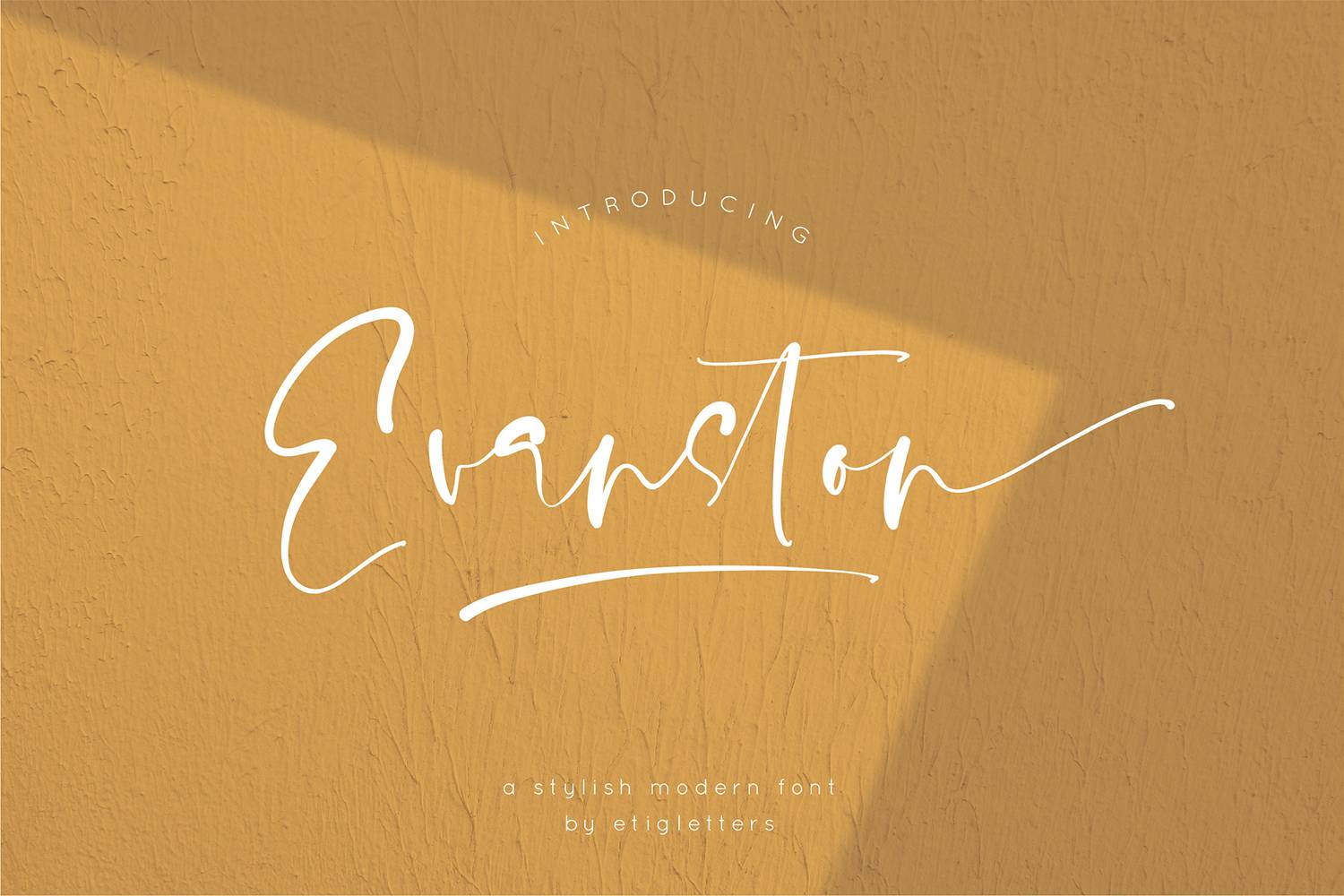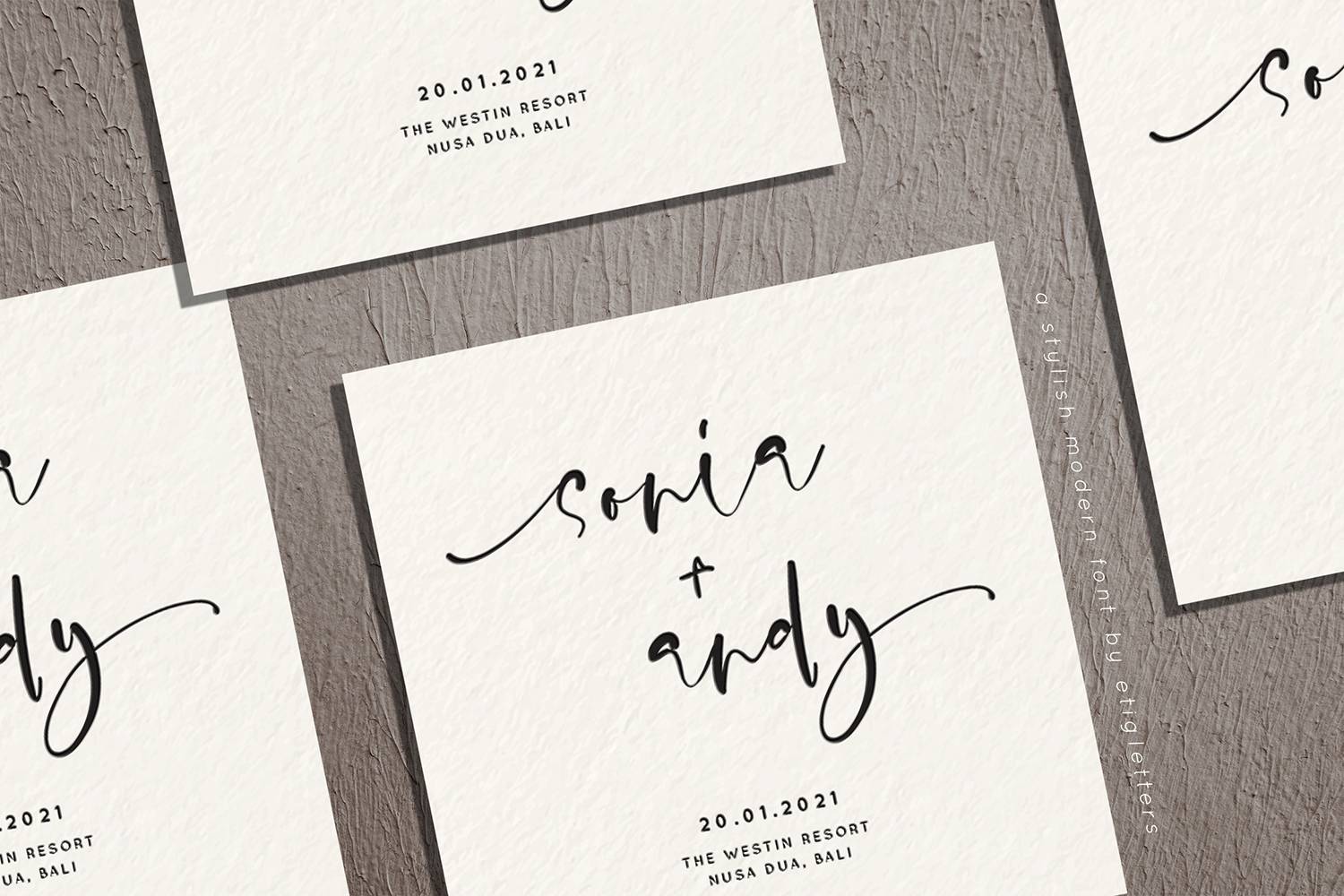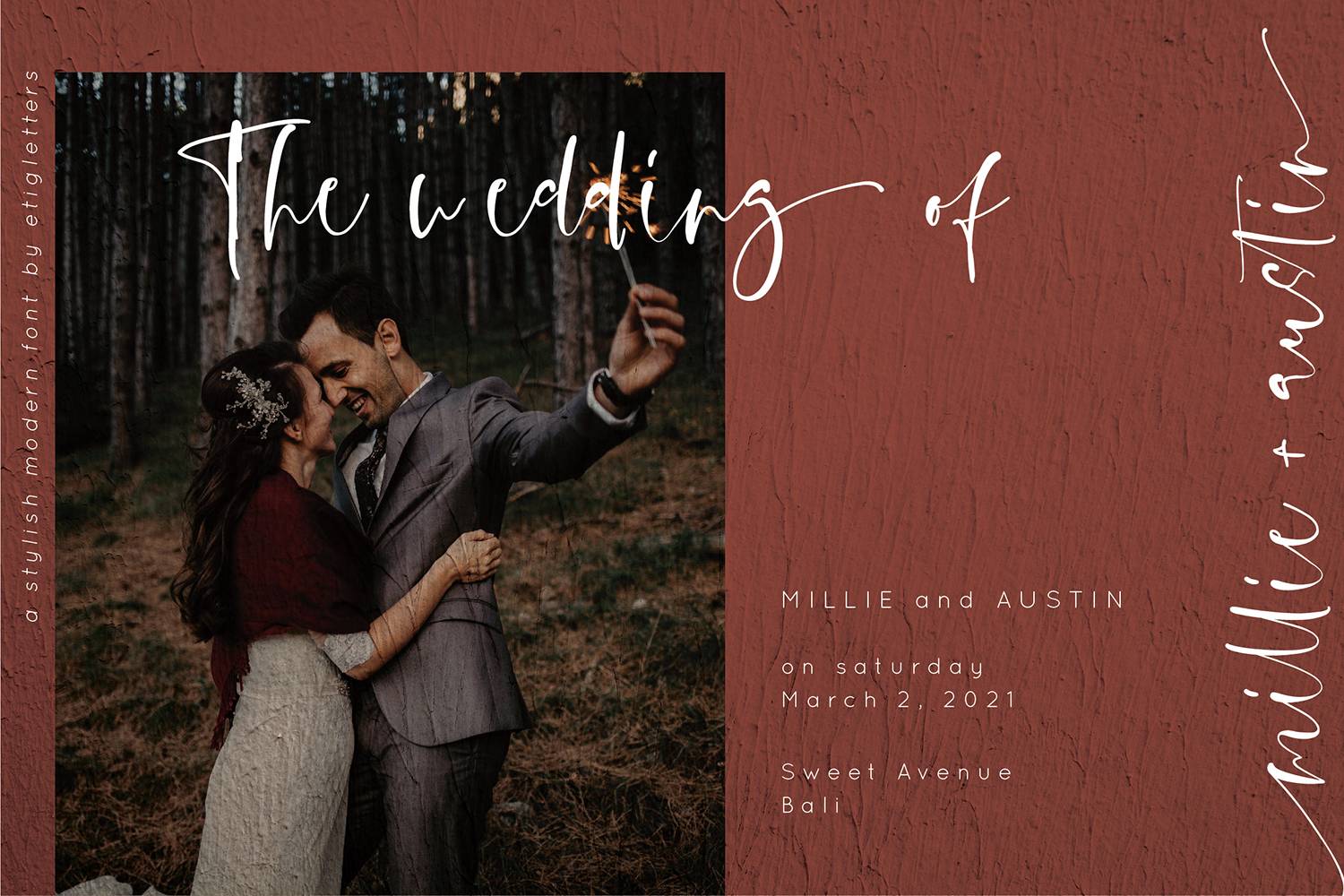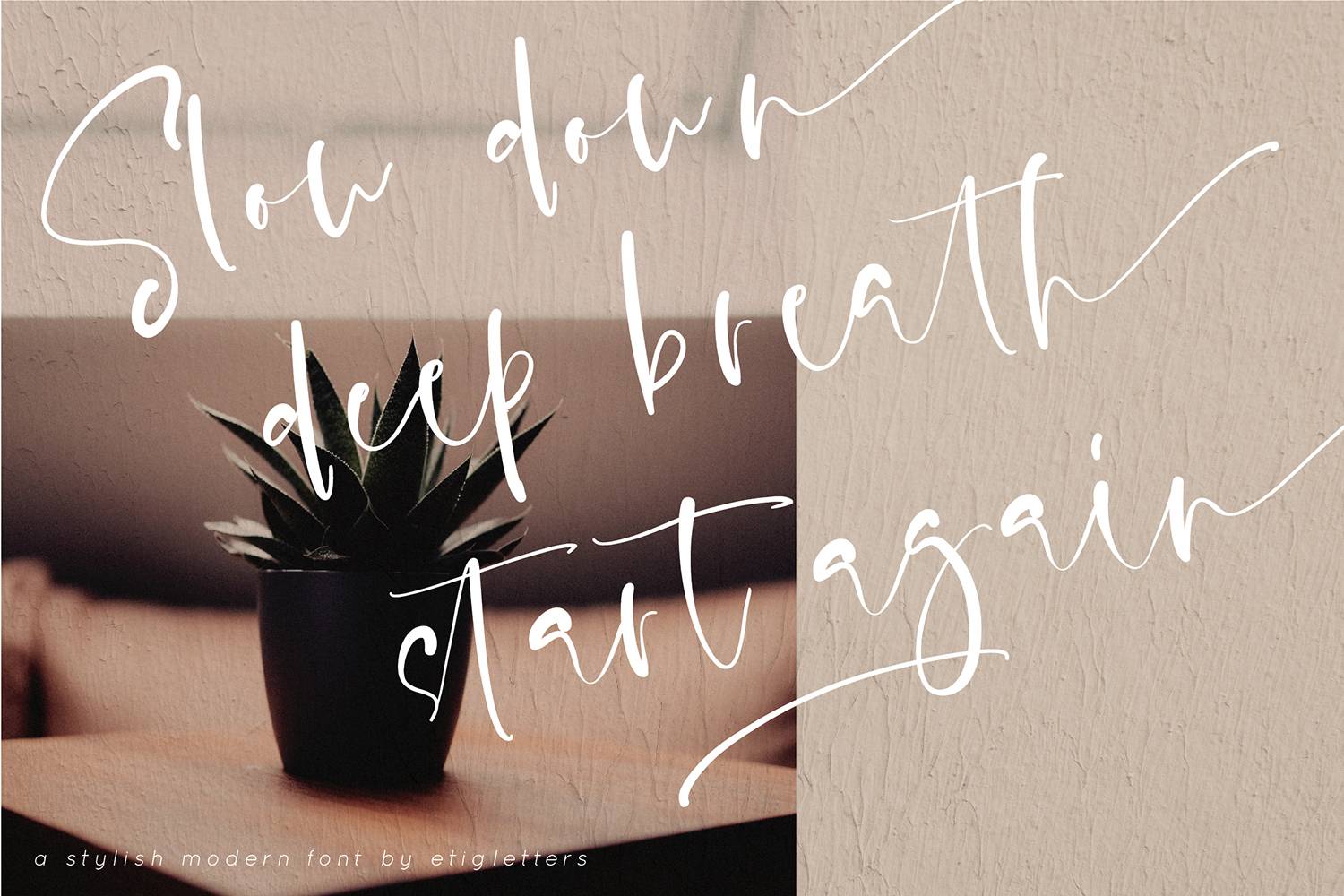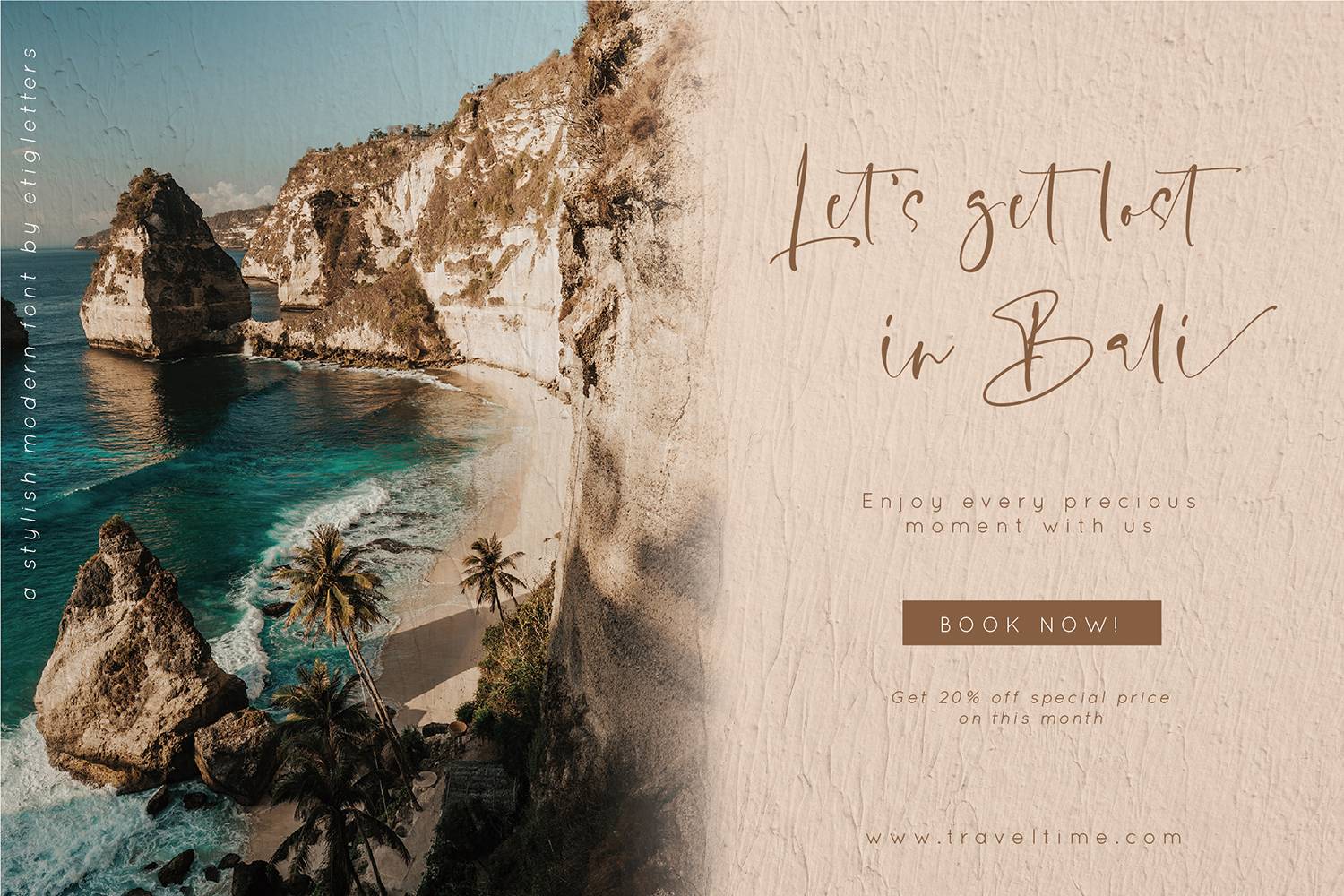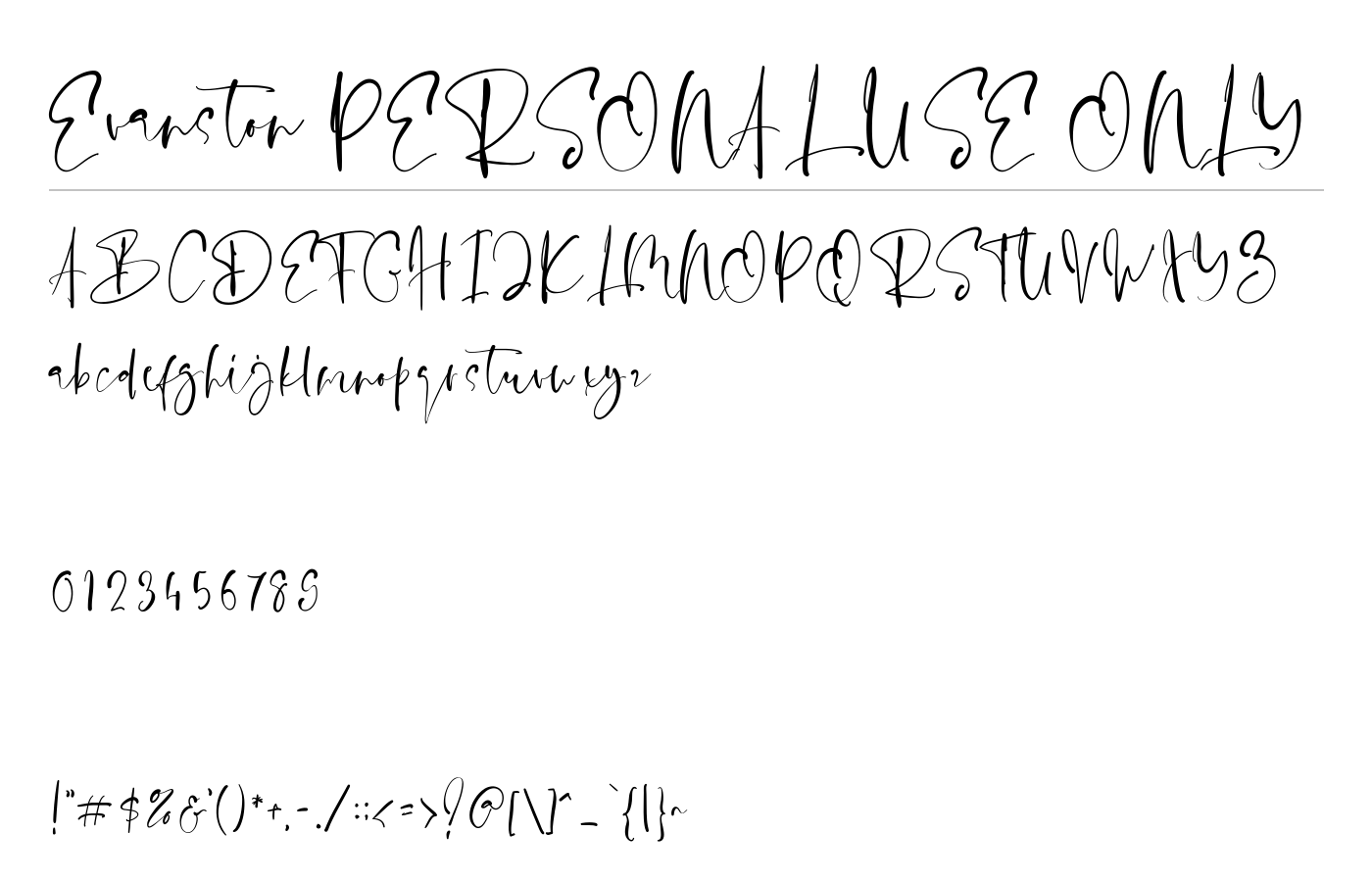
Evanston is a delicate, handwritten script font with a light, airy feel and playful character. Its thin, uneven strokes and whimsical letterforms give it a personal, casual elegance, making it ideal for creative projects, invitations, and branding that seeks a friendly, artistic touch. This font shines in designs where a natural, handcrafted look is desired rather than formal or structured typography.
Evanston Font
About Evanston Font
| Font family | Evanston Font |
| Designer | Afridah Ciputra |